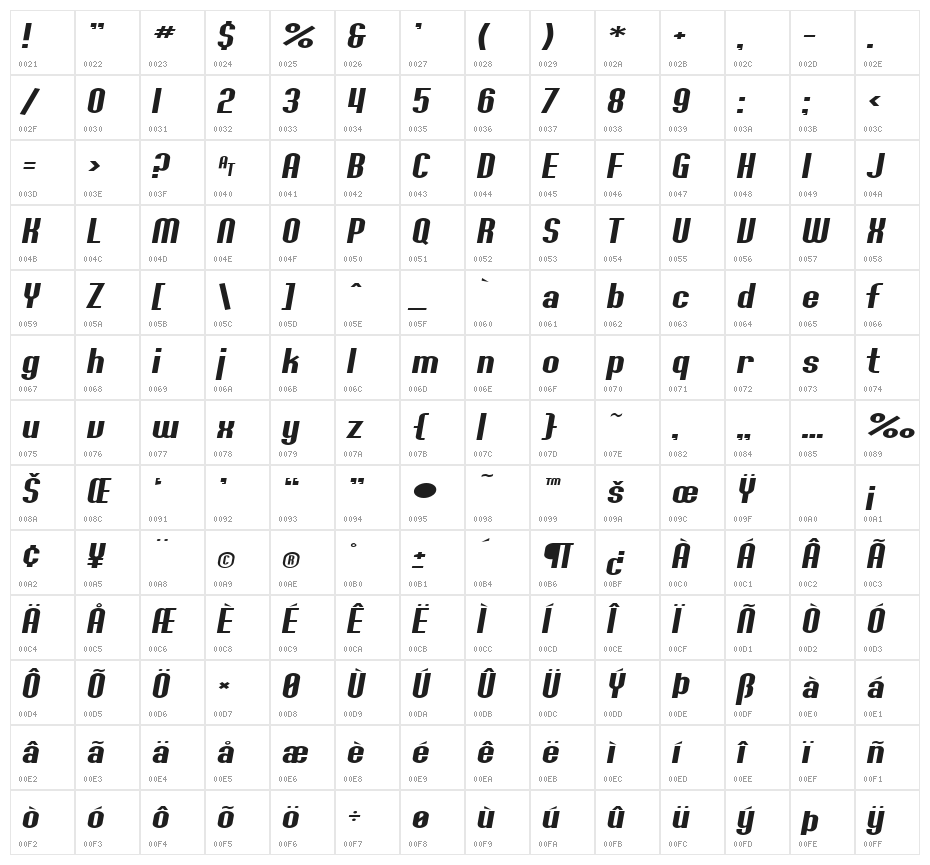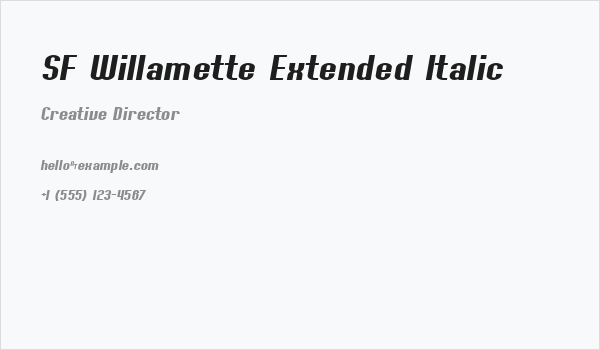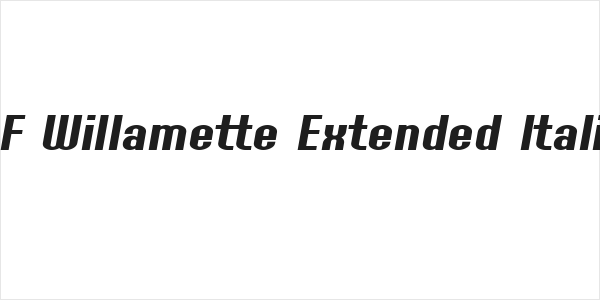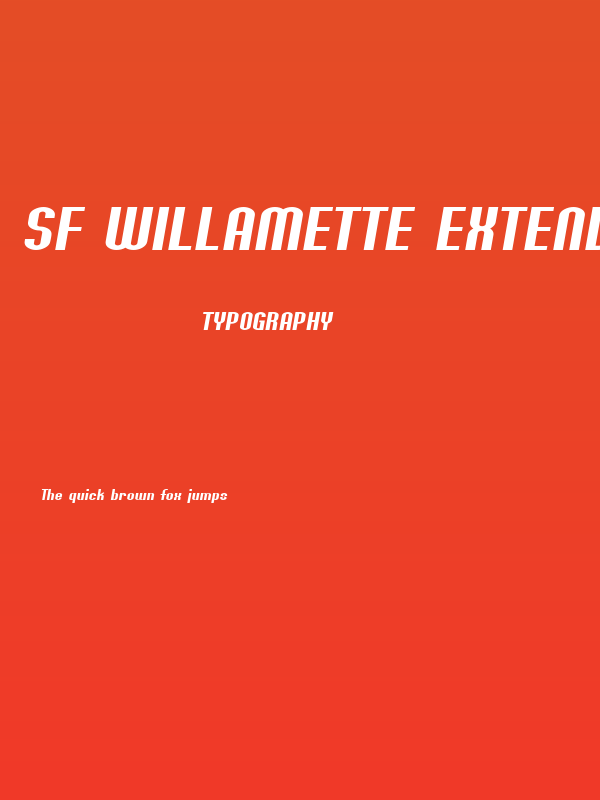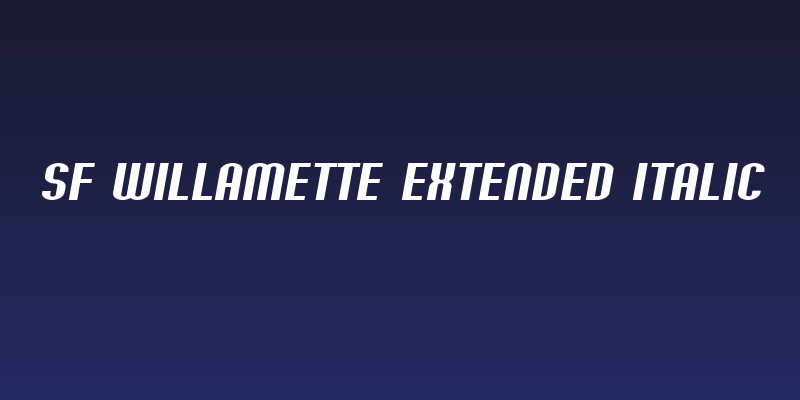
SF Willamette Extended Italic Font
SF Willamette Extended Italic Description
This font features an extended and italicized style, characterized by its bold and dynamic appearance. The uppercase and lowercase letters are designed with a forward slant, giving a sense of motion and energy. The characters are wide, providing a strong presence on the page. The numerals and special characters maintain the same bold and italicized style, ensuring consistency throughout. The font's overall look is modern and impactful, making it suitable for attention-grabbing designs.
Proposed ProjectsIdeal for sports branding, dynamic posters, and modern advertising campaigns.